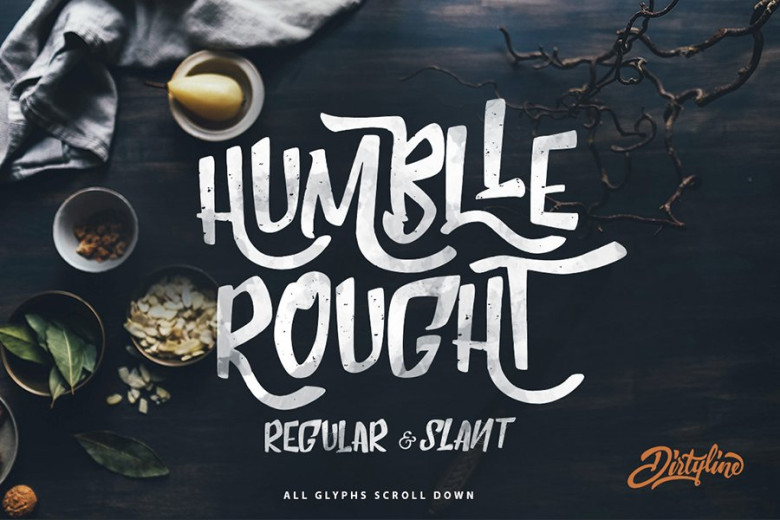
Humblle Rought Font
Humblle Rought is a modern vintage Brush typeface style with some combination of style Street And Life-Style. Wild hand and imperfect flow give the natural looks. So beautiful on invitation like greeting cards, branding materials, business cards, quotes, posters, and more!